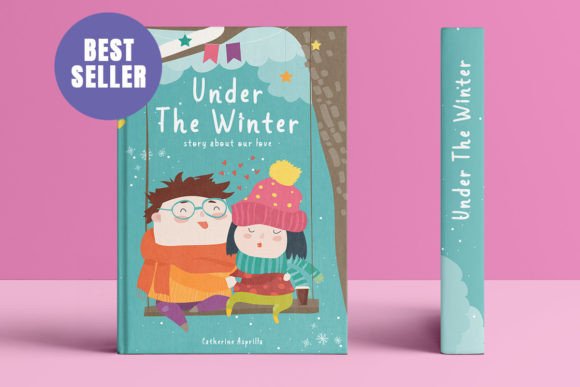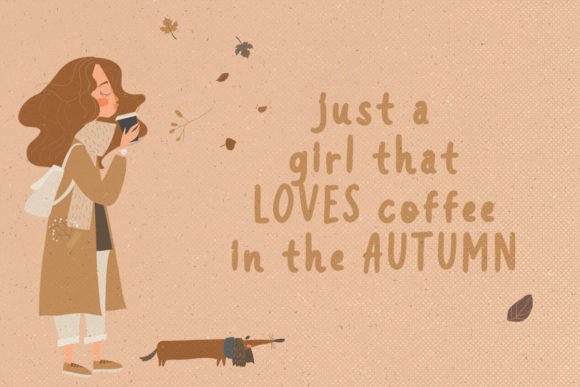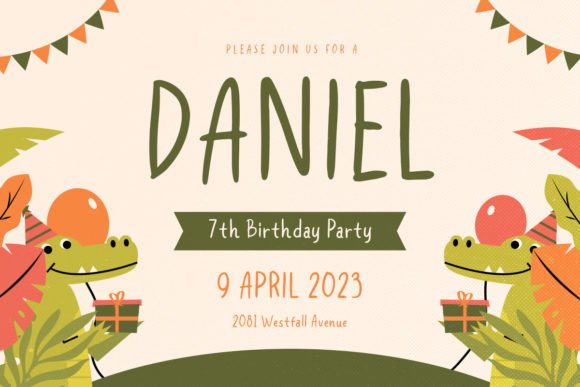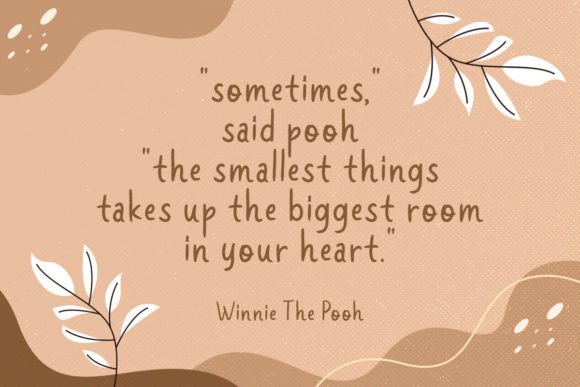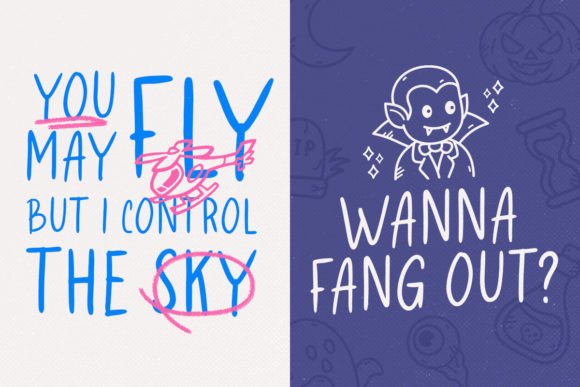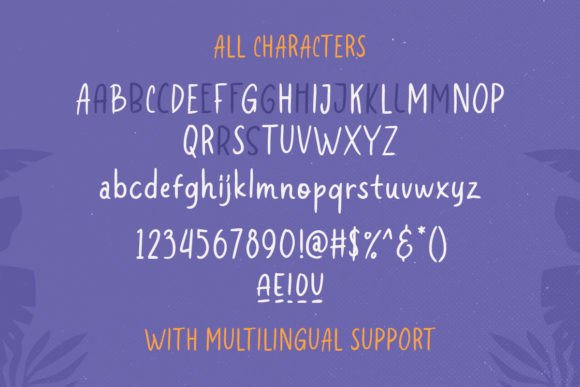
Introducing Bulbatail: The Cute and Casual Handwritten Font for Creative Projects
In the world of typography, fonts play a crucial role in conveying the tone and personality of a brand or design. For designers and crafters looking for a unique and charming font to elevate their projects, Bulbatail is an excellent choice. This cute and casual handwritten font is perfectly suited for a variety of applications, from logos and invitations to packaging and advertising.
The Characteristics of Bulbatail Font
Bulbatail is a carefully crafted handwritten font that exudes a sense of friendliness and approachability. Its casual and relaxed vibe makes it ideal for designs that require a personal touch. The font features:
- Unique letterforms: Each letter in Bulbatail has been meticulously designed to showcase a distinctive and playful character.
- Consistent flow: The font’s flowing connections and carefully balanced letter spacing create a harmonious and natural look.
- Legibility: Despite its casual nature, Bulbatail remains highly legible, making it suitable for both short and long-form text.
Bulbatail’s versatility makes it an excellent choice for a wide range of creative projects, including:
- Logos: Create a memorable brand identity with Bulbatail’s distinctive and charming letterforms.
- Invitations: Add a personal touch to your invitations, whether it’s for a wedding, birthday party, or other special occasion.
- Labels and packaging: Make your products stand out with Bulbatail’s unique and eye-catching font.
- Magazines and books: Use Bulbatail to add a touch of personality to your publications, from headings to body text.
- Greeting and wedding cards: Create beautiful and heartfelt cards with Bulbatail’s charming and expressive font.
- Fashion and makeup: Elevate your fashion or makeup brand with Bulbatail’s stylish and modern aesthetic.
- Stationery and novels: Add a touch of whimsy to your stationery, journals, or novels with Bulbatail’s delightful font.
- Advertising: Use Bulbatail to create eye-catching advertisements that capture the attention of your target audience.
Why Choose Bulbatail?
With so many fonts available, why choose Bulbatail? Here are just a few reasons:
- Unique and distinctive: Bulbatail’s handcrafted letterforms ensure that your designs stand out from the crowd.
- Highly versatile: Bulbatail can be used for a wide range of projects, from digital designs to print materials.
- Legible and readable: Despite its creative and artistic nature, Bulbatail remains easy to read, even at small sizes.
Tips for Using Bulbatail Effectively
To get the most out of Bulbatail, consider the following tips:
- Experiment with colors: Bulbatail looks great in a variety of colors, so don’t be afraid to try out different hues and combinations.
- Mix and match: Combine Bulbatail with other fonts to create visually interesting and dynamic designs.
- Pay attention to spacing: Adjust the letter spacing and line height to ensure that your text is easy to read and visually appealing.
- Use it consistently: Use Bulbatail consistently throughout your design to create a cohesive and professional look.
In conclusion, Bulbatail is a charming and versatile handwritten font that’s perfect for designers and crafters looking to add a personal touch to their projects. With its unique letterforms, consistent flow, and high legibility, Bulbatail is an excellent choice for a wide range of creative applications. Whether you’re designing logos, invitations, packaging, or advertising materials, Bulbatail is sure to make your designs stand out.